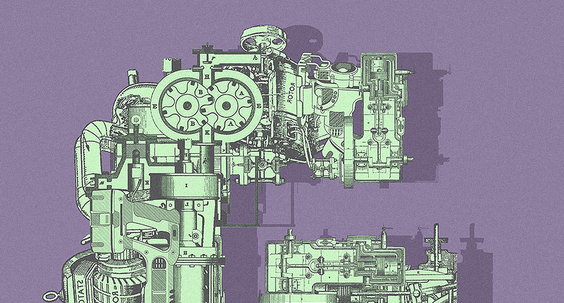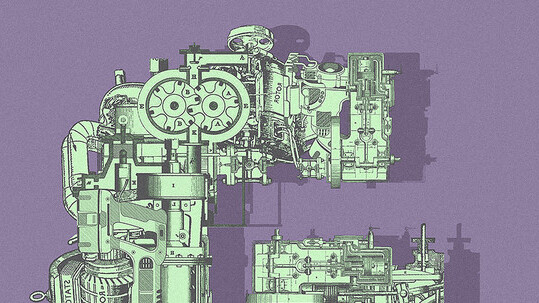
Nearly every designer shares a strong love for typography. Many will never become type designers, or even dedicated typographers, but somehow we all lust for the details of gorgeous type treatments, display and text fonts.
Out of every genre hidden in the depths of typography, from black letter to grotesque, I have a soft spot for experimental typefaces. Seeing technology, art and design merge together yields spectacular and wild results. Here’s a list of 5 highly original experimental typefaces:
IQ Font
IQ Font is one of the wider-known experiments built with openFrameworks. It was actually created in part by the framework’s founder, Zach Lieberman, and is a perfect example of the power and beauty of code.
From Zach Lieberman: ”Two typographers (Pierre & Damien) and a pro race pilot (Stef van Campenhoudt) collaborated to design a font with a car. The car movements were tracked using a custom software that I wrote, which was then outputted into data to create a font.” You can download the results here.
Mekkanika
“Mekkanika is a mind-blowing experimental typeface by Italian designer Riccardo Sabatini based on the Din Alternate Black font. Sabatini scanned hundreds of mechanical technical drawings and used the component pieces to create each intricate letterform, leaving no letter, number, Autobot or Decepticon logo unfinished.” (via Colossal)
Skin Type
“Everyone has one. Any time you’ve written on your hand, you’ve created one. A unique DNA based typeface.” Skin Type, created by Brian Stewart, is an intense experimental typeface. Stewart told TNW:
I wrote something on my hand and noticed how the black ink bled into the wrinkles and creases in my skin. It was just something I’d kind of noticed for the first time, even though I’ve written on my hands hundreds of times.
Then I thought it’d be interesting to make a typeface from it, especially if you were able to capture the intricacies of how the ink fills in the patterns on your skin. I was also thinking that because your skin pattern, like your finger prints, is unique – then when everyone writes on their hand, they create a unique DNA based typeface without even considering it.
BalletFont
BalletFont follows in the footsteps of IQ Font, but takes the concept of motion tracking in an entirely different direction. It is “a project to create a typeface ‘Ligne’ from a dancer’s movements in space.” (via Creative Applications Network)
Three versions of software called “Chireo” (chirography + choreography) were developed using openFrameworks. “capture” did the initial motion and video capture. “augment” let the team clean up the data and export the font and rendered videos. “live” is the real time motion tracking / augmented reality software which was used for the realtime demo.
Bite off more than you can chew
Bite off more than you can chew comes from designer Anna Garforth. She said “I thought to myself what could I ever love more than a good cuppa and a biscuit…typography. So there you have it, a home baked poster fresh out the oven.”
There’s something amazing about the designers that take on the tremendous goal of creating their own font. The devil’s in the details as far as the brunt of the creation process goes, and like I’ve written before, the entire process requires a special breed of designer.